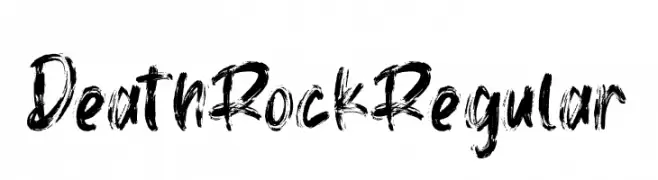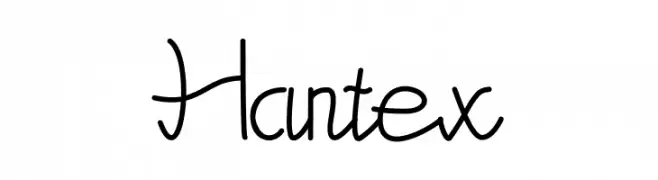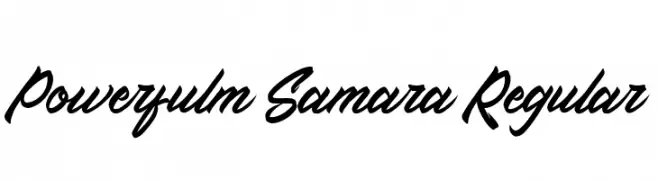
A bold, brushstroke-style font with an edgy, rebellious aesthetic.
A bold, brush-style font with a dynamic and artistic flair.
A bold, brush-style italic font with dynamic and expressive strokes.
A bold, italicized font with a futuristic and dynamic style.
A playful, handwritten font with a whimsical and informal style.
A bold, dynamic script font with flowing, interconnected strokes.
A playful and whimsical script font with flowing, interconnected letters.
A charming and elegant script font with flowing, cursive letterforms.
A bold, playful handwritten font with rounded strokes and a dynamic slant.
A bold, angular font with a modern, industrial aesthetic.